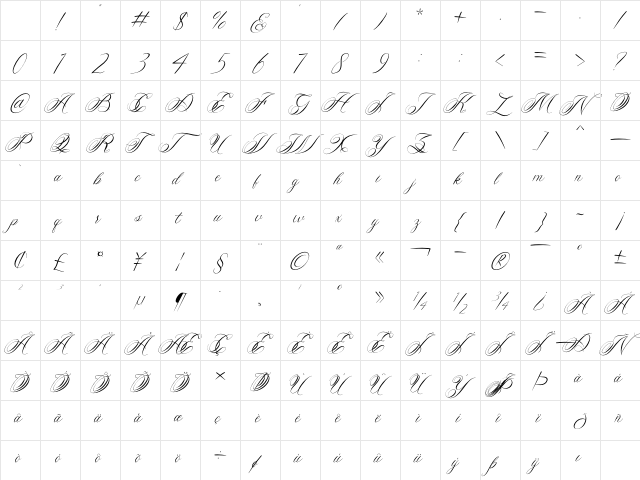
Melody of Love Regular
Designer: WinType / Winarko
Complete Melody of Love Regular glyph index. Displaying only characters natively supported by Melody of Love Regular font.
Design Context for Melody of Love
Melody of Love is a composed and adaptable typeface that performs quietly and consistently across a wide range of design contexts.